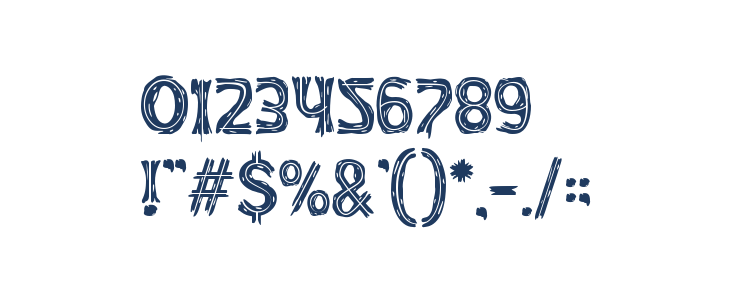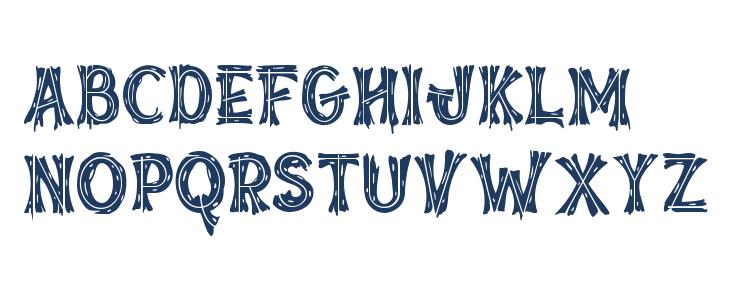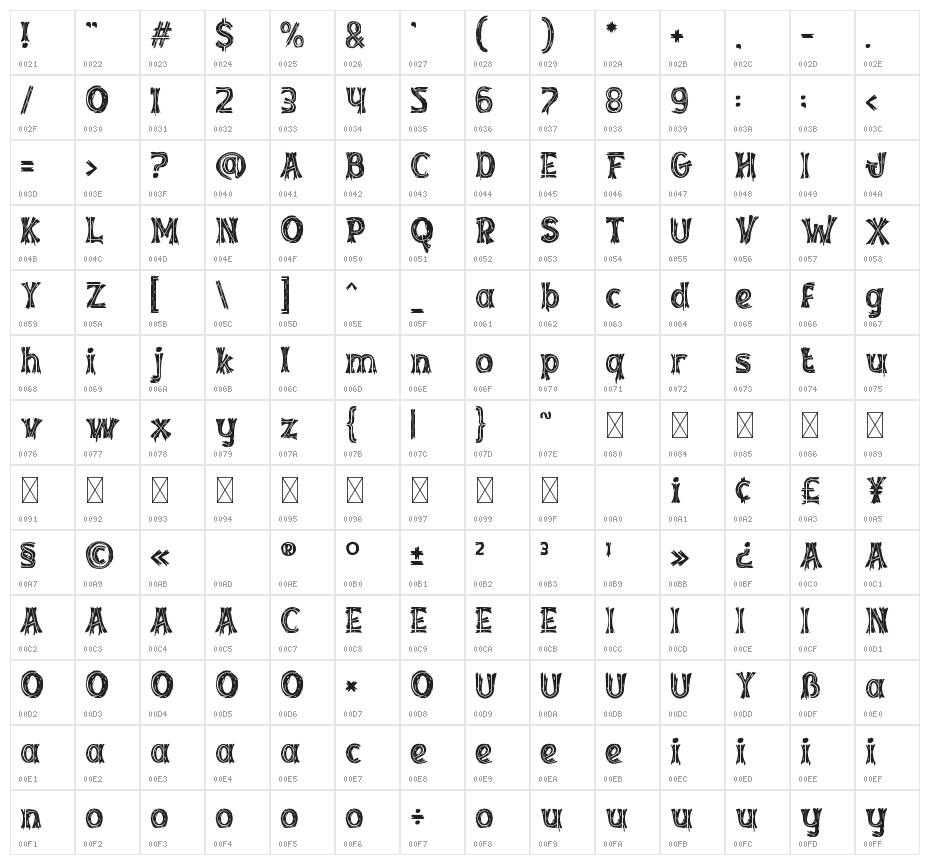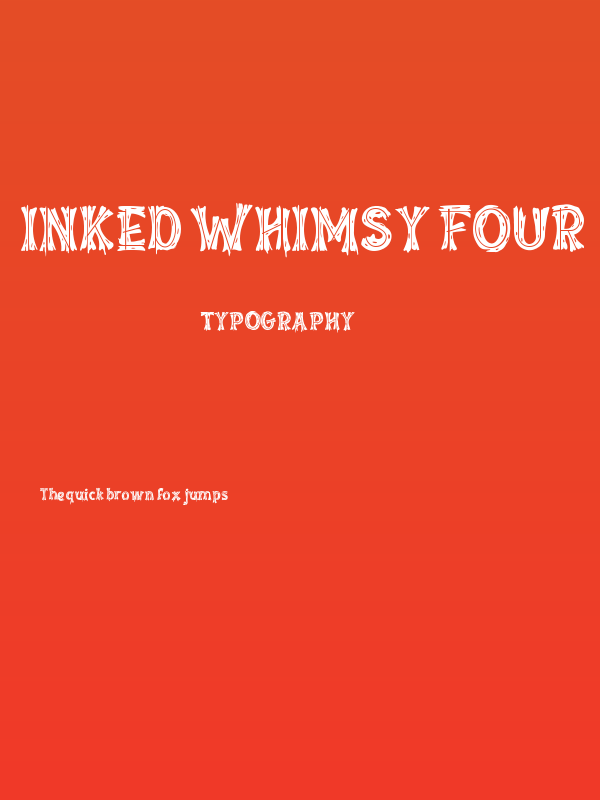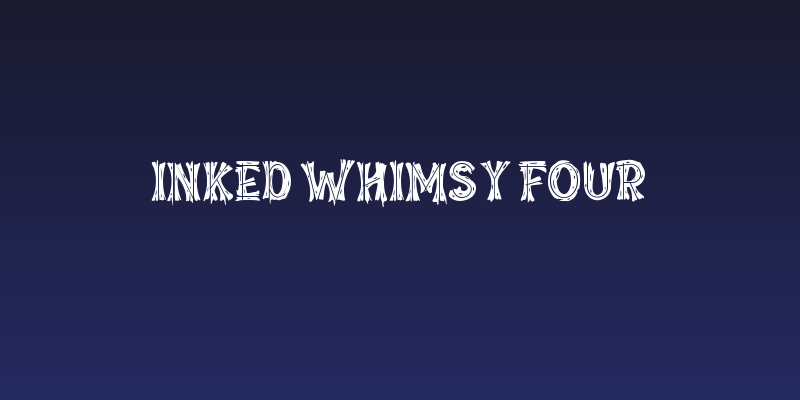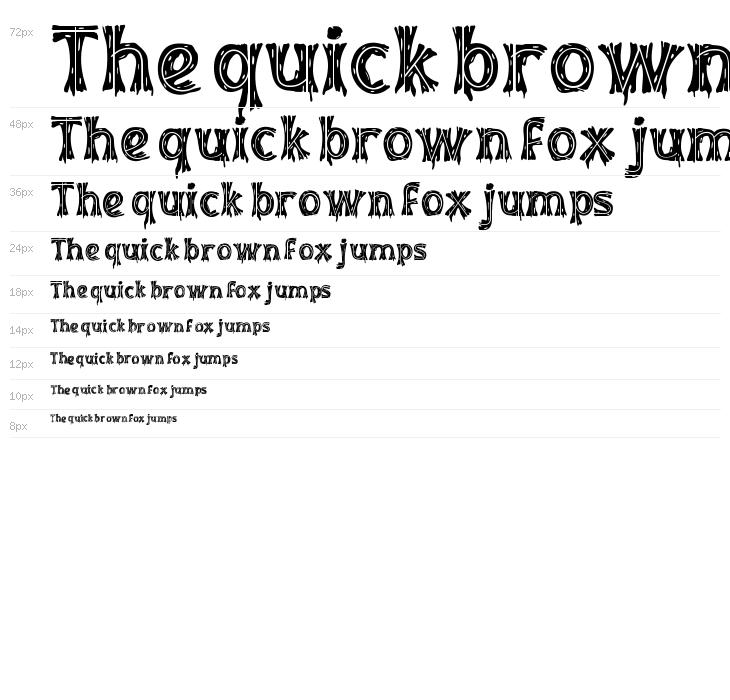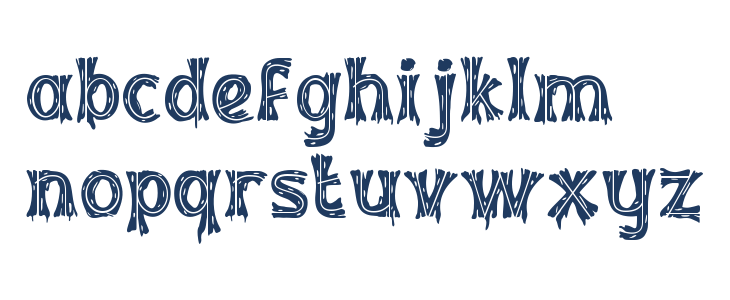
Inked Whimsy Four Font
| Stile generale | Decorative, Whimsical, Playful |
| Caso d'uso | Headlines, Posters, Logos, Invitations |
| Progetti proposti | Children’s book covers, party invitations, posters, greeting cards, creative branding, Halloween or themed event materials. |